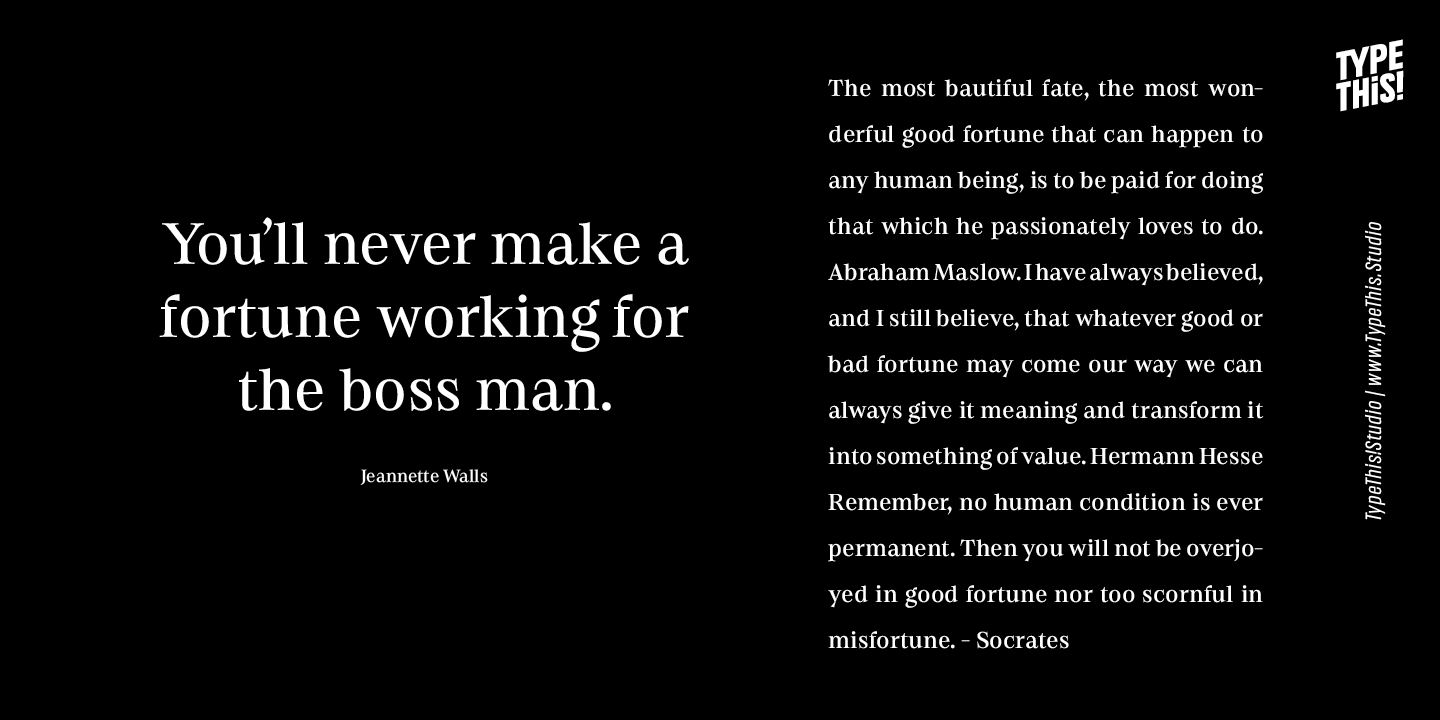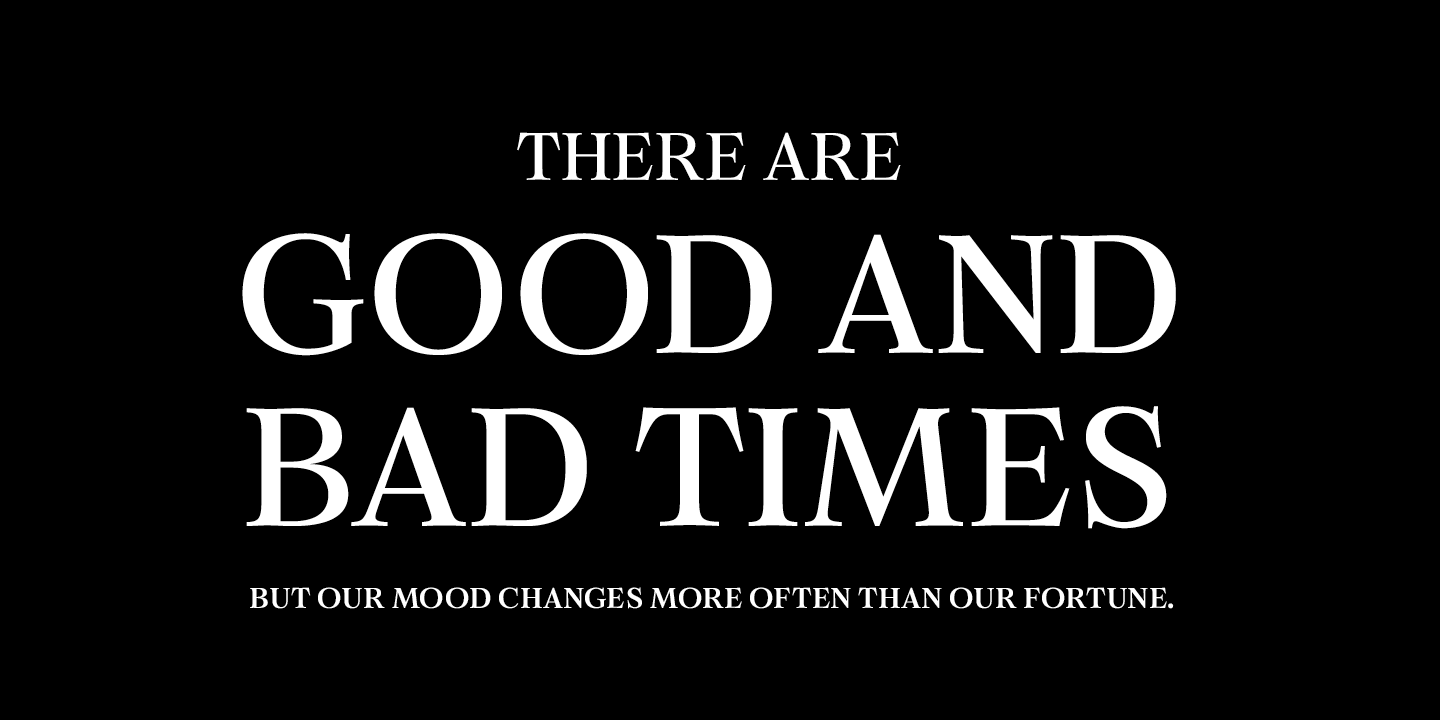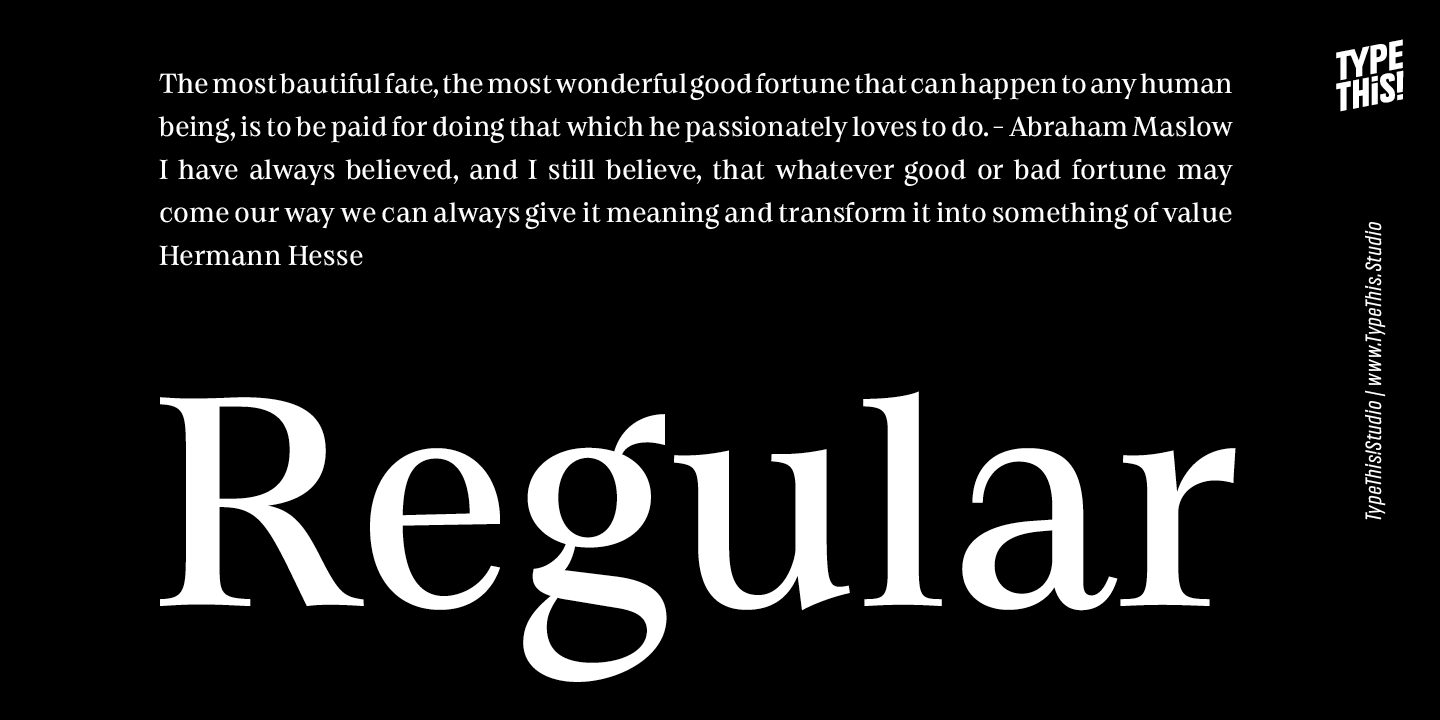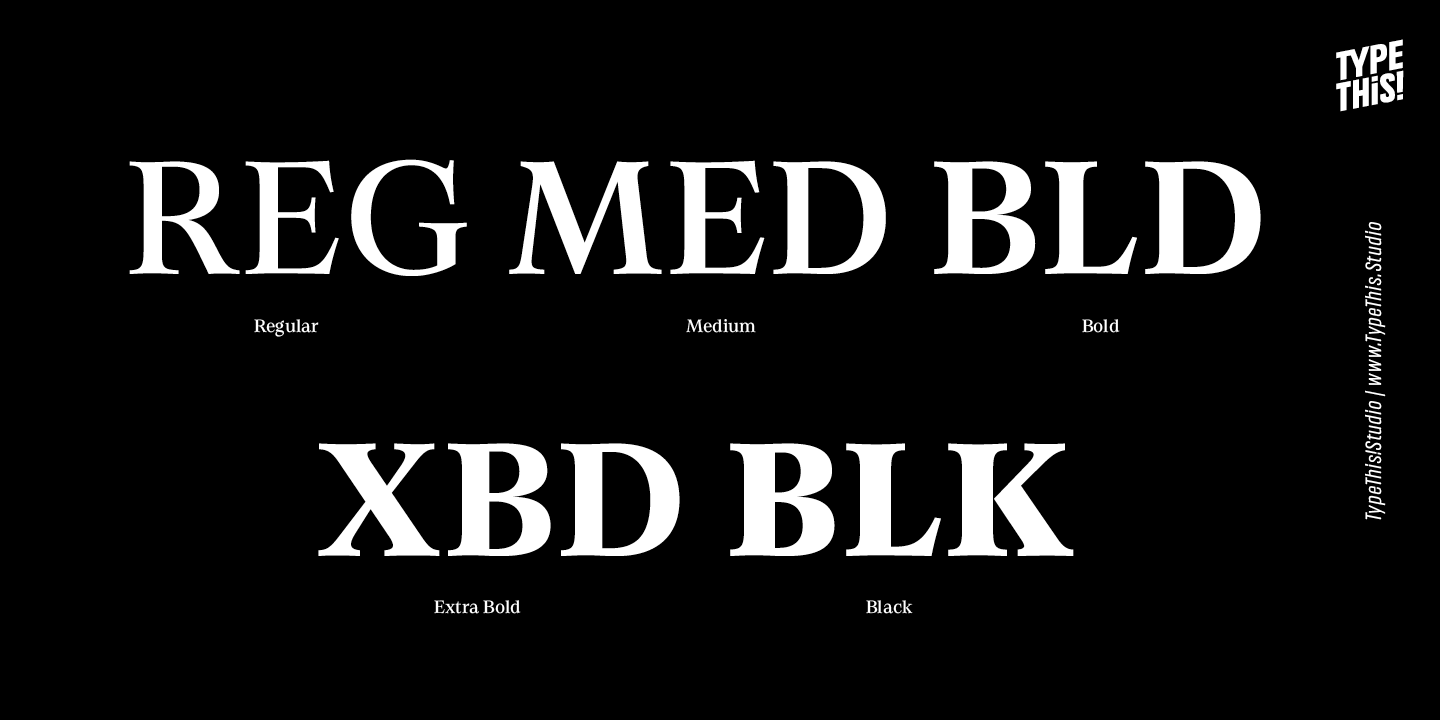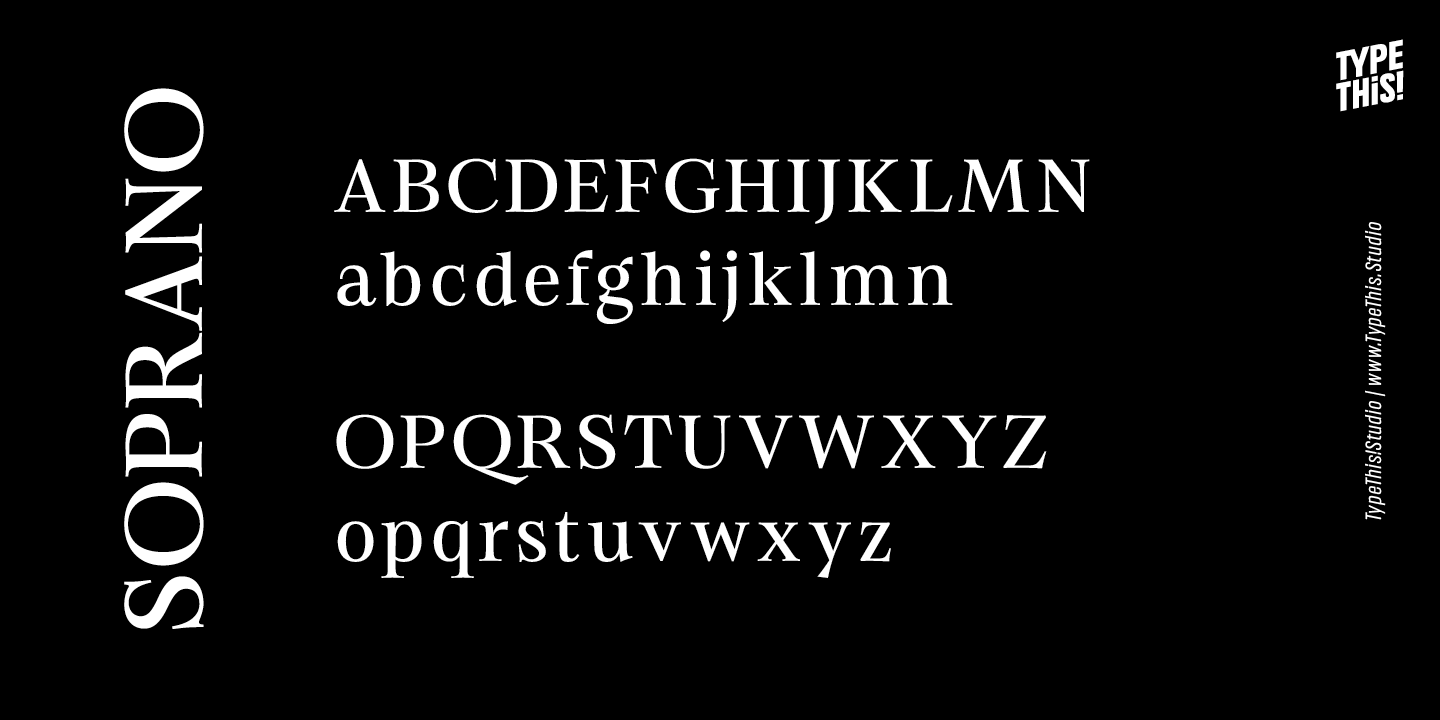
Soprano (5 fonts)
From Anita Jürgeleit / TypeThis! Studio
Soprano is designed for elegant and luxury design elements. Whether it's brands for watches, jewelry, cars or fine wines, Soprano adds the undeniable and outstanding beauty of a professional designed elegant typeface. ??Soprano offers 5 weights and a full set of upper & lowercase letters, ligatures, old-style & lining figures as well as broad Latin language support.
Typeface Features
• 659 Characters
• 5 Styles (Regular, Medium, Bold, Extra Bold, Black)
• Old Style Figures
• Lining Figures
• Predefined Fractions
• Standard Ligatures
• Numerators/Denominators
• Sub-/Superscript
• 217 Latin languages supported